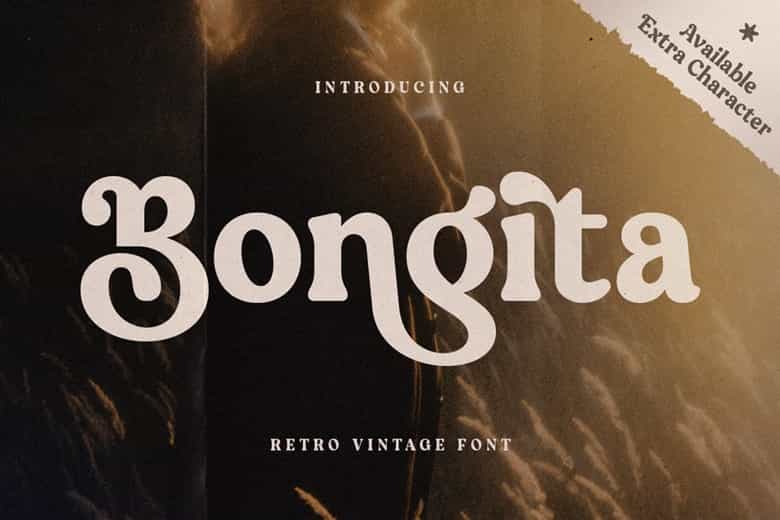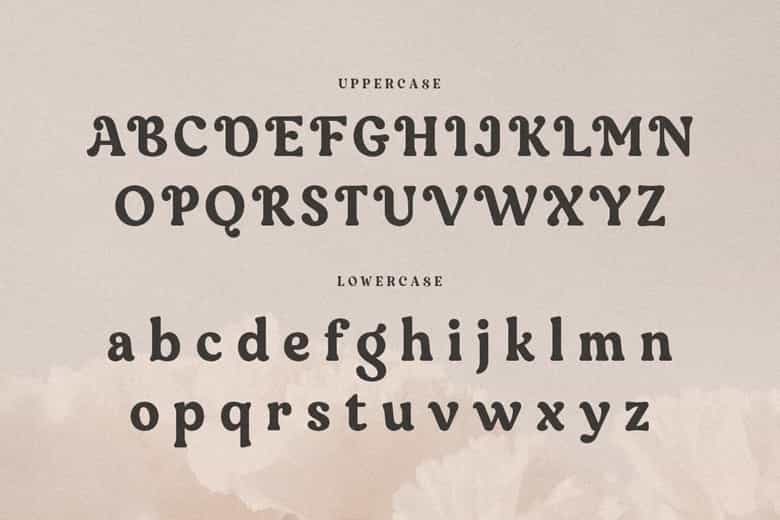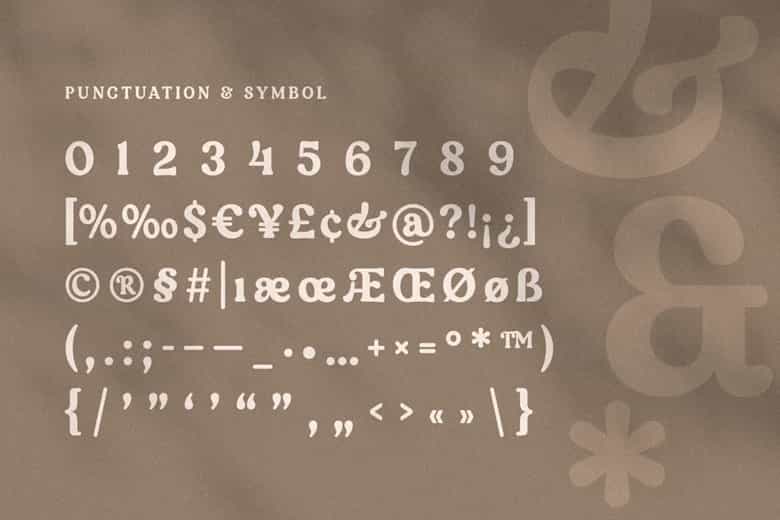
Bongita is a modern retro serif typeface, describing stylish nostalgic designs that are consistent with previous styles, suitable for designs to give a timeless feel. Although referencing earlier signage and advertising, Bongita injects personality and atmosphere into any design which makes it perfect for branding, packaging projects and beyond.